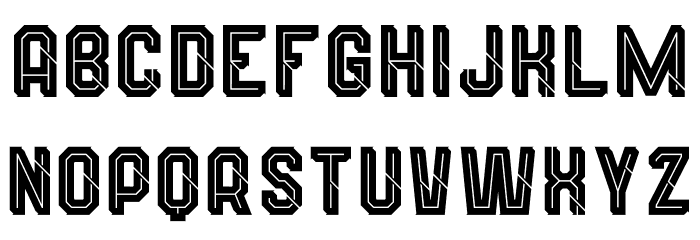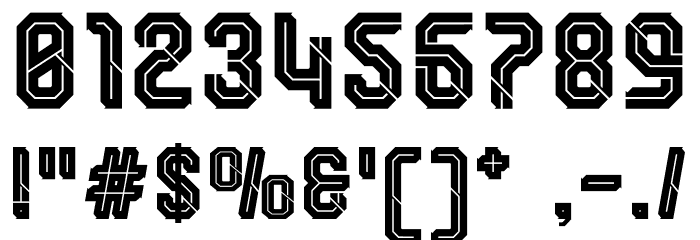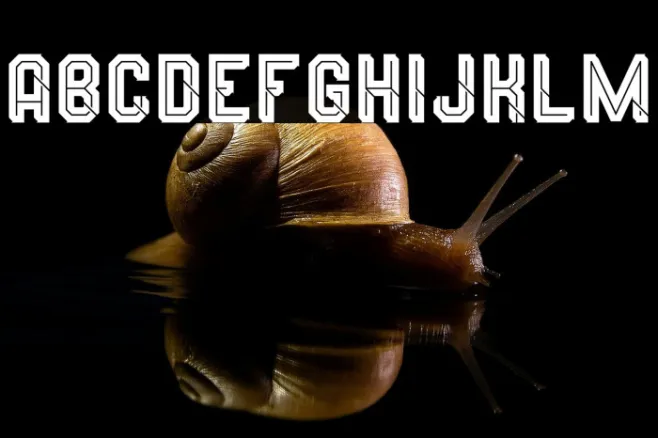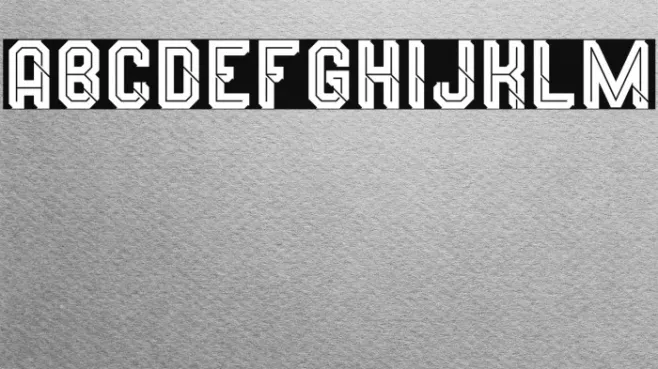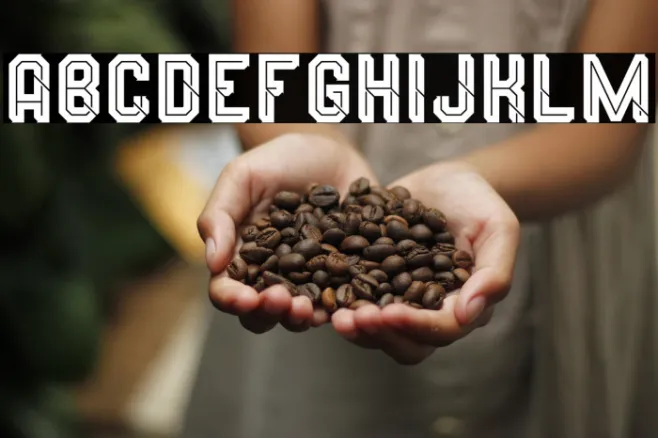
Wynford Line Alt. 1 Font
This font features a bold, geometric design with a distinct three-dimensional effect. The characters are outlined with a thick border, creating a layered appearance that adds depth and visual interest. The angular shapes and sharp edges give it a modern and futuristic feel, while the consistent stroke width maintains clarity and readability. The font includes uppercase letters, numbers, and a variety of special characters, making it versatile for different design needs. Its unique style is eye-catching and suitable for projects that require a strong visual impact.
A bold, geometric font with a three-dimensional effect and sharp, angular shapes.
- Font: Wynford Line Alt. 1
- Proposed Projects: Ideal for posters, logos, video game graphics, and any design requiring a modern, impactful look.